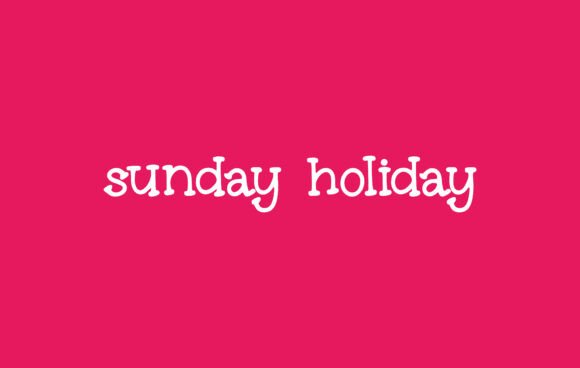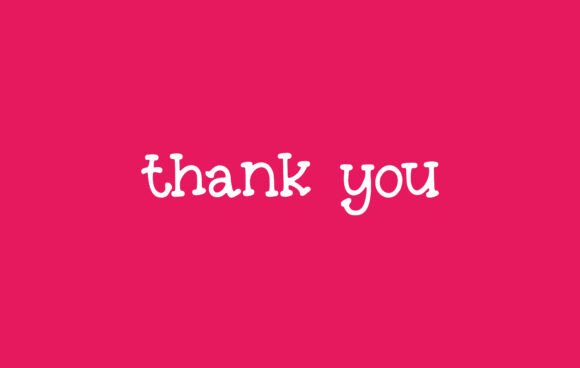
Introducing Choco Chomp Font: The Perfect Handwritten Font for Your Creative Projects
Are you looking for a font that can add a touch of romance and elegance to your designs? Look no further than Choco Chomp font, an authentic handwritten font that is sure to become a true favorite in your collection. With its unique blend of whimsy and sophistication, Choco Chomp font is the perfect choice for designers and crafters who want to take their creative ideas to the highest level.
What Makes Choco Chomp Font So Special?
Choco Chomp font is expertly designed to be both legible and visually appealing, making it perfect for use as a title or body text. Its romantic touch and authentic handwritten feel make it an ideal choice for a wide range of design projects, from magazine headlines and social media graphics to branding, wedding invitations, and cards.
Key Features of Choco Chomp Font
• Authentic Handwritten Font: Choco Chomp font is a genuine handwritten font that adds a personal touch to any design project.
• Romantic Touch: With its elegant and whimsical feel, Choco Chomp font is perfect for designs that require a romantic touch.
• Legible and Versatile: Choco Chomp font is designed to be both legible and versatile, making it perfect for use as a title or body text.
• Wide Range of Uses: From magazine headlines and social media graphics to branding, wedding invitations, and cards, Choco Chomp font is perfect for a wide range of design projects.
Why Designers and Crafters Love Choco Chomp Font
Designers and crafters love Choco Chomp font for its unique blend of elegance and whimsy. Whether you’re creating a romantic wedding invitation or a bold social media graphic, Choco Chomp font is the perfect choice. Its authentic handwritten feel and romantic touch make it an ideal choice for designers who want to add a personal touch to their designs.
How to Use Choco Chomp Font in Your Designs
• Pair it with Other Fonts: Choco Chomp font pairs well with other fonts, making it easy to create unique and interesting typography combinations.
• Use it as a Title Font: Choco Chomp font is perfect for use as a title font, adding a touch of elegance and sophistication to your designs.
• Use it as a Body Text Font: Choco Chomp font is also legible enough to use as a body text font, making it perfect for longer design projects.
In conclusion, Choco Chomp font is a must-have for designers and crafters who want to add a touch of romance and elegance to their designs. With its authentic handwritten feel, romantic touch, and versatility, Choco Chomp font is the perfect choice for a wide range of design projects. Whether you’re creating a wedding invitation, social media graphic, or branding materials, Choco Chomp font is sure to become a true favorite in your collection.